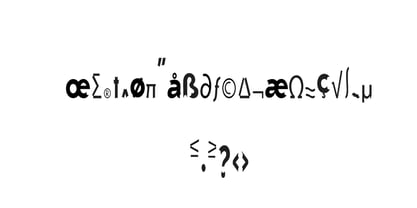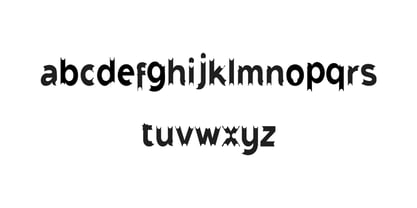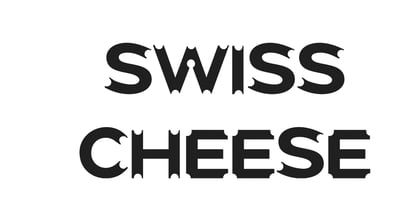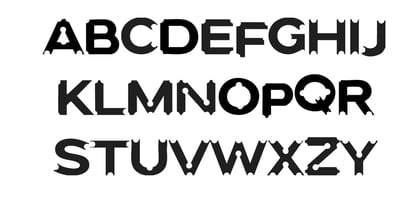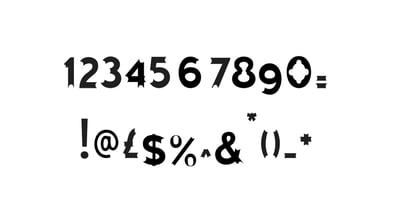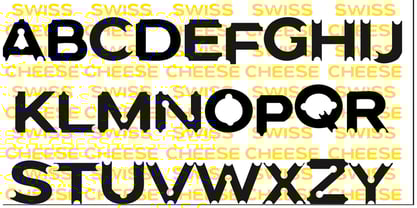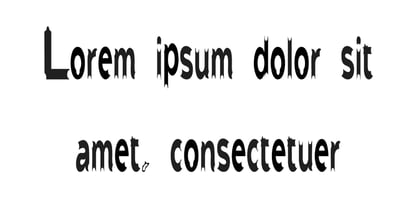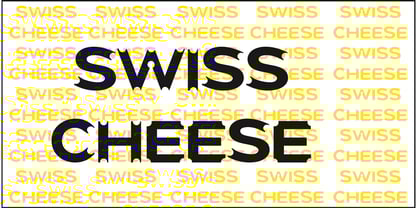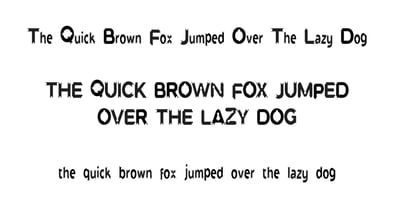
Swiss cheese
by Jointype
The Swiss cheese Font Family was designed by Jeremy Gill-Praba and published by Jointype. Swiss cheese contains 1 styles. More about this family
Bold. Playful. Full of Character (and Holes). Say hello to Swiss Cheese, the fun and funky typeface inspired by the iconic holes of Emmental cheese! With its bold curves and whimsical cut-outs, this font oozes personality and charm. Perfect for food branding, children's packaging, quirky logos, cheese shops, or any project that needs a delicious twist. Whether you're designing for a gourmet deli or a playful party invite, Swiss Cheese adds flavor, fun, and a hint of nostalgia. Available in Regular, Bold & Extra Holey styles Uppercase letters with extra cheesy accents Ideal for logos, posters, signage, packaging, and headlines Works great in print and digital Get a taste of something truly original — Swiss Cheese Typeface melts hearts and grabs attention.
Designers: Jeremy Gill-Praba
Foundry: Jointype